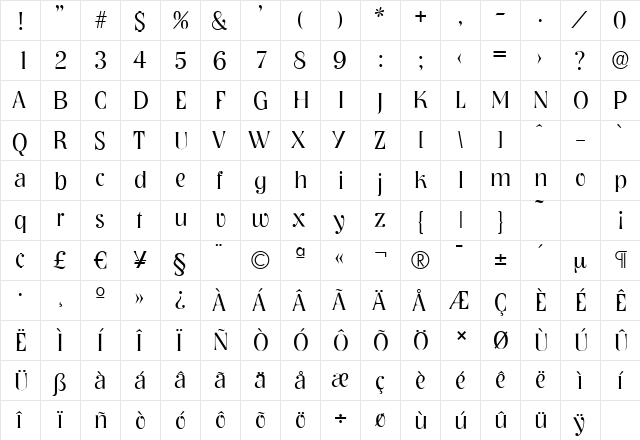
NashvilleSerial-Light Regular
Foundry SoftMaker Software GmbH
DesignerSoftMaker Software GmbH
Design Context for NashvilleSerial-Light Typeface
NashvilleSerial-Light takes a measured approach to typography — its balanced proportions and neutral character make it a reliable workhorse for both digital and print work. The delicate stroke weight brings airiness and refinement to layouts.